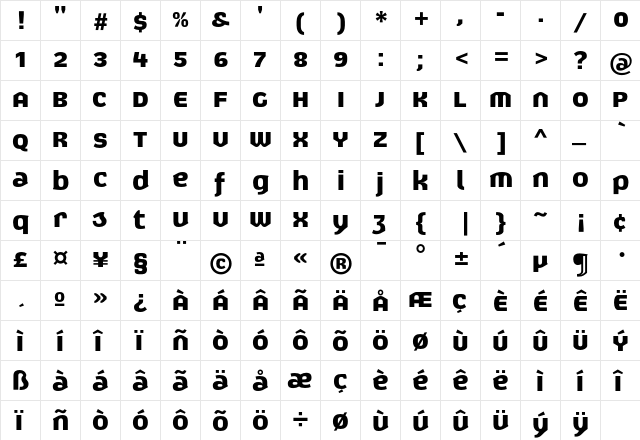
Exert Bold
Design Context for Exert Typeface
Exert takes a measured approach to typography — its balanced proportions and neutral character make it a reliable workhorse for both digital and print work. Its bold stroke weight gives it real presence on the page.
Pro Tip: Use Exert in both headline and body roles to test its range before committing to a single application.